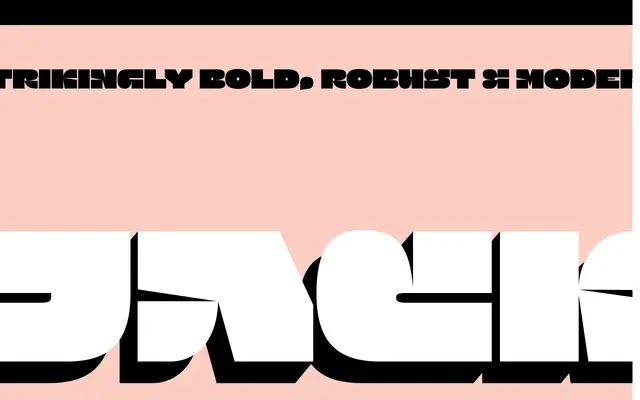
Jack
A capitals-only variable display typeface born from an experimental wavy drawing tool, offering width and corner axes for wave-like letterform distortions.
Born from Tavern, an experimental wavy tool by Gaëtan Baehr, Jack strips letterforms to simplified, raw capitals with a width variation axis and four corner axes that allow precise control over curvature. The result can range from clean, bold geometry to rippling, wave-distorted forms suited to posters and large-scale branding. A single Regular style is available, with the variable axes doing the work of differentiation.
A capitals-only display typeface with variable width and corner axes, derived from an experimental wavy tool; its stripped-back, raw letterforms and poster-scale intent place it firmly in the display category with a brutalist character.